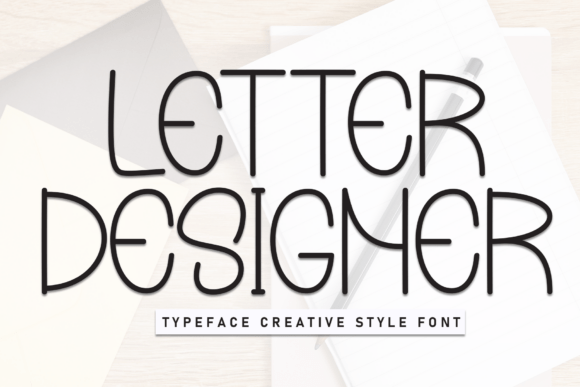
Introducing Letter Designer Font: Elevate Your Designs with a Modern Creative Display Font
In the world of typography, a font can make all the difference in the success of a design project. A well-crafted font can elevate your brand, convey your message, and leave a lasting impression on your audience. If you’re a designer looking for a unique and modern display font to add some personality to your work, look no further than Letter Designer Font. In this article, we’ll explore the features, benefits, and uses of Letter Designer – a clean and quirky display typeface that’s perfect for designers who want to infuse their work with creativity and originality.
Key Features of Letter Designer Font
- Clean and Quirky Design: Letter Designer boasts a fresh, modern look with tall, rounded letterforms and distinctive linear elements that add a touch of whimsy to your designs.
- Handcrafted Appearance: This font features a handcrafted appearance that gives it a unique, human touch, making it perfect for designs that require a personal and creative flair.
- Minimalistic Charm: Despite its creative and playful design, Letter Designer has a minimalistic charm that ensures it remains readable and versatile.
10 Inspiring Ways to Use Letter Designer Font
- Branding: Create a memorable brand identity with Letter Designer, perfect for logos, business cards, and letterheads.
- Stationery: Add a touch of personality to your stationery, including invitations, greeting cards, and postcards.
- Planners and Journals: Use Letter Designer to create visually appealing planners, journals, and diaries that inspire creativity and productivity.
- Logos and Icons: Design unique logos and icons that stand out from the crowd with Letter Designer’s distinctive linear elements.
- Social Media Graphics: Elevate your social media presence with eye-catching graphics, banners, and posts created with Letter Designer.
- Editorial Layouts: Use Letter Designer to add a modern touch to your editorial layouts, including magazines, newspapers, and blogs.
- Packaging Design: Create eye-catching packaging designs that showcase your brand’s personality with Letter Designer.
- Advertising: Use Letter Designer to create attention-grabbing ads that capture your audience’s attention.
- Web Design: Enhance your website’s typography with Letter Designer, perfect for headings, titles, and emphasis text.
- Print on Demand: Design unique print-on-demand products, such as t-shirts, mugs, and phone cases, with Letter Designer.
Why Designers Love Letter Designer Font
- Unique Style: Letter Designer offers a unique style that’s playful yet professional, making it perfect for designers who want to stand out from the crowd.
- Readability: Despite its creative design, Letter Designer remains highly readable, making it suitable for both print and digital designs.
- Versatility: This font is versatile and can be used for a wide range of design projects, from branding and stationery to editorial layouts and web design.
Tips and Tricks for Using Letter Designer Font
- Experiment with Ligatures: Take advantage of Letter Designer’s ligatures to add a touch of elegance and sophistication to your designs.
- Mix and Match: Combine Letter Designer with other fonts to create a unique and visually appealing typography hierarchy.
- Pay Attention to Kerning: Adjust the kerning to ensure that your text is evenly spaced and visually appealing.
- Use Swashes: Add a touch of personality to your designs with Letter Designer’s swashes, perfect for headings and emphasis text.
In conclusion, Letter Designer Font is a modern creative display font that’s perfect for designers who want to infuse their work with personality and originality. With its clean and quirky design, handcrafted appearance, and minimalistic charm, this font is versatile and can be used for a wide range of design projects. Whether you’re a seasoned designer or just starting out, Letter Designer is a great addition to your font library.